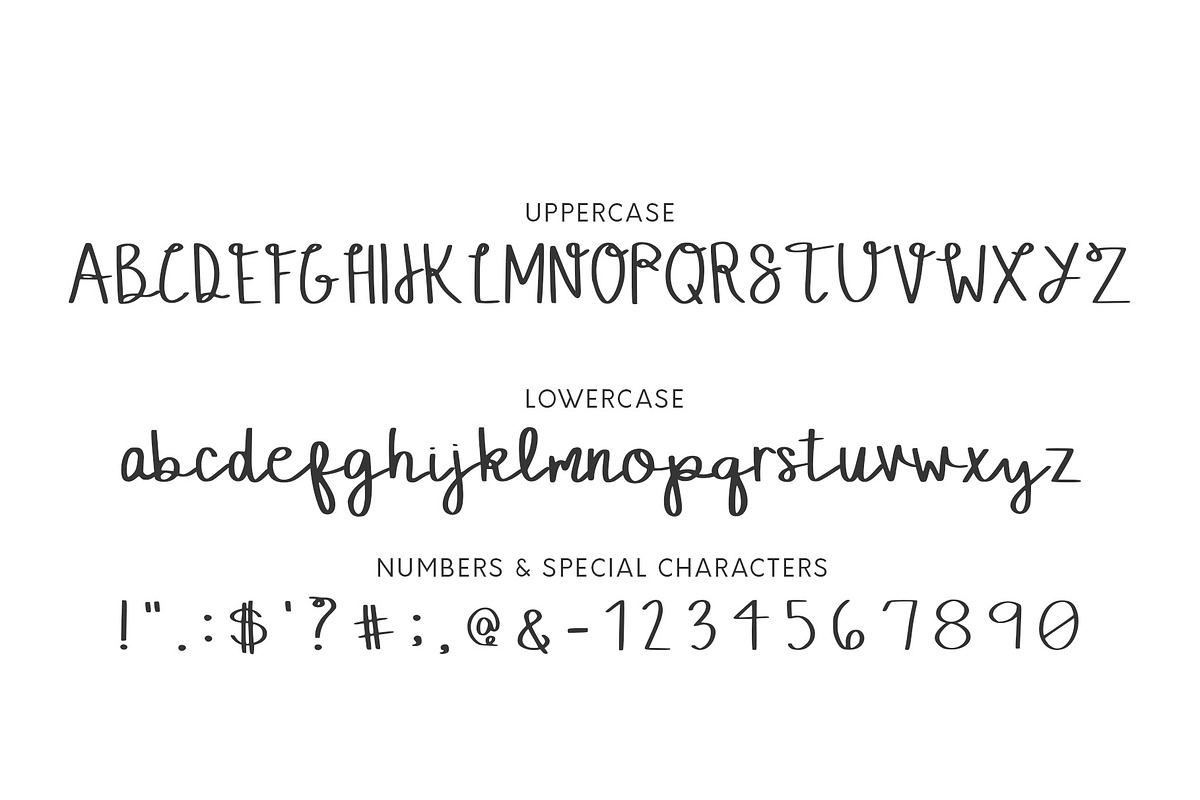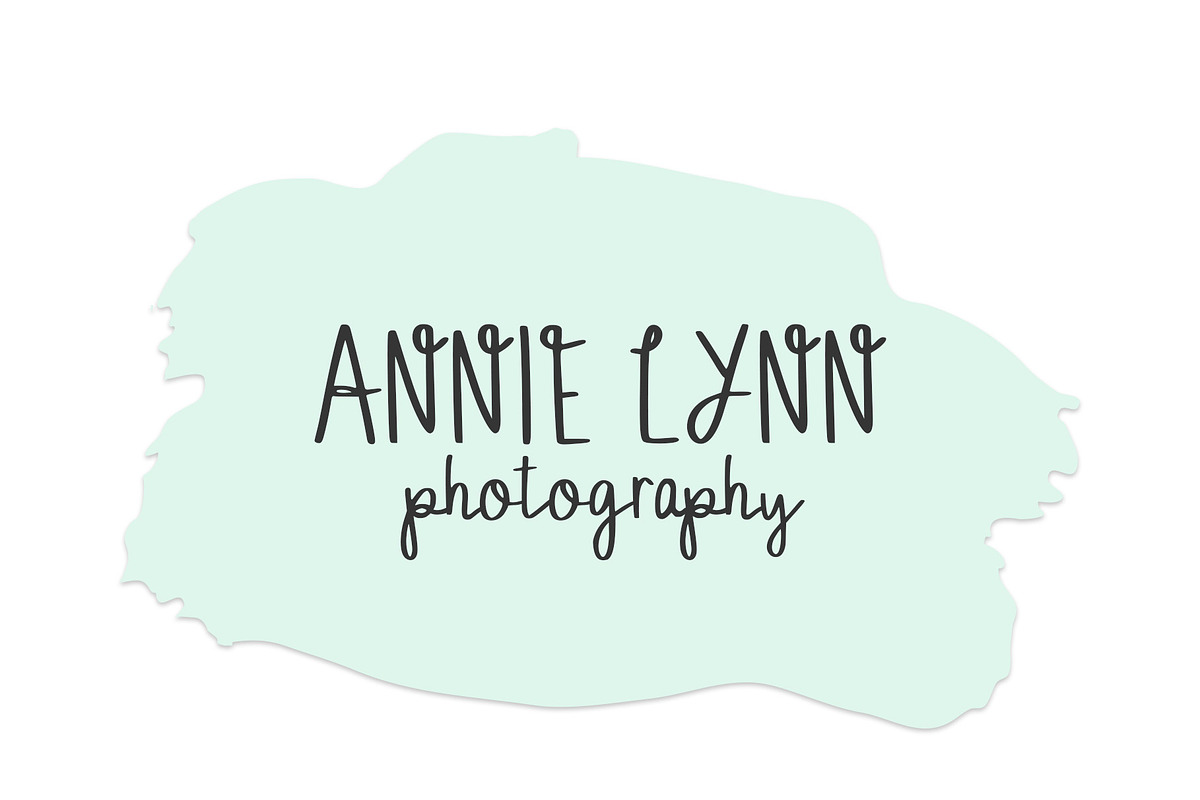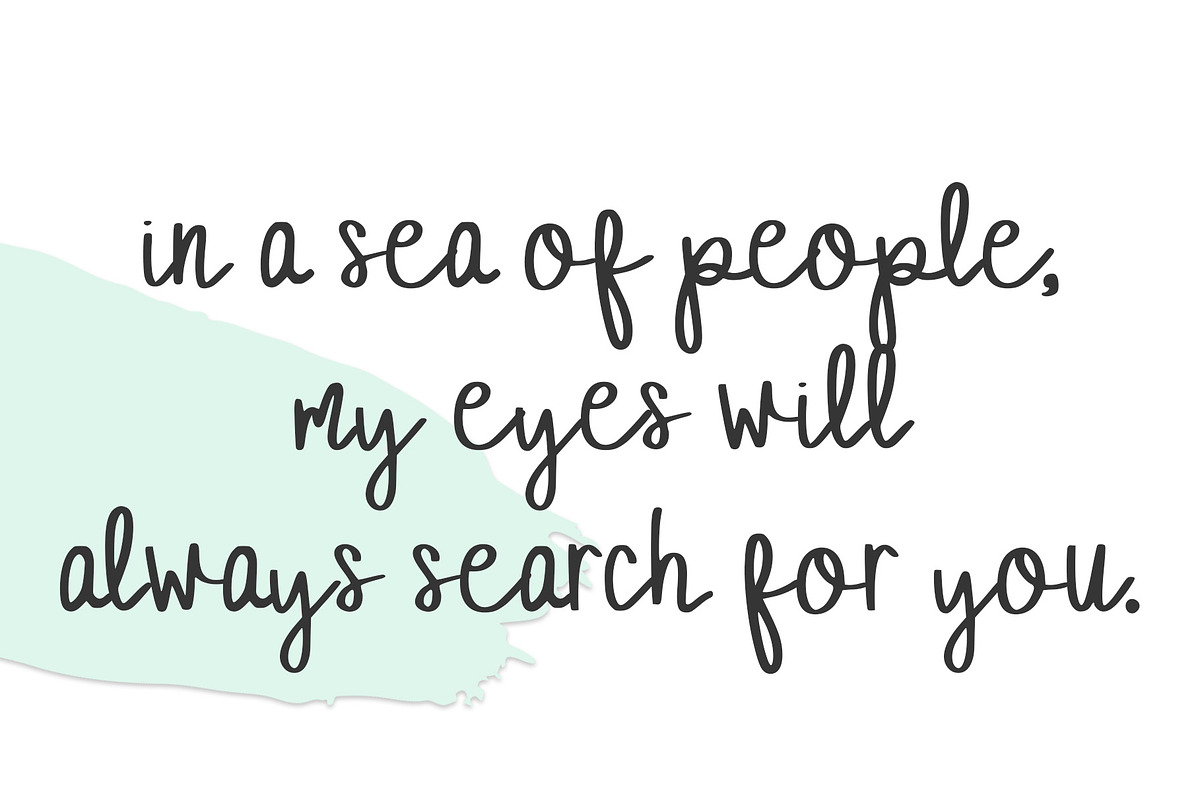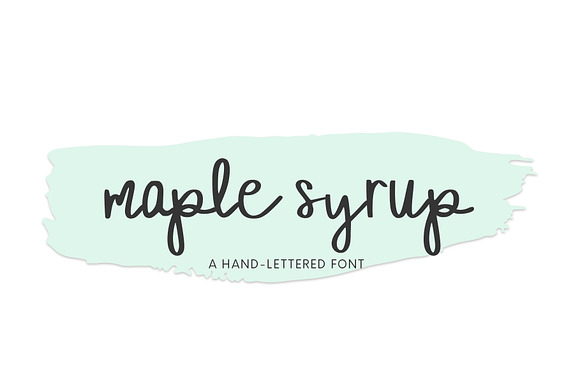
Maple Syrup, Hand-Lettered Font
A beautiful new typeface that's perfect for all sorts of graphic design projects. Including web design, branding, stationery design, logos, banners and more!
What's Included: Uppercase alphabet -Lowercase alphabet -Numerals: 0-9 -Speciality characters: ! : $ - " # ; @ . ? & '